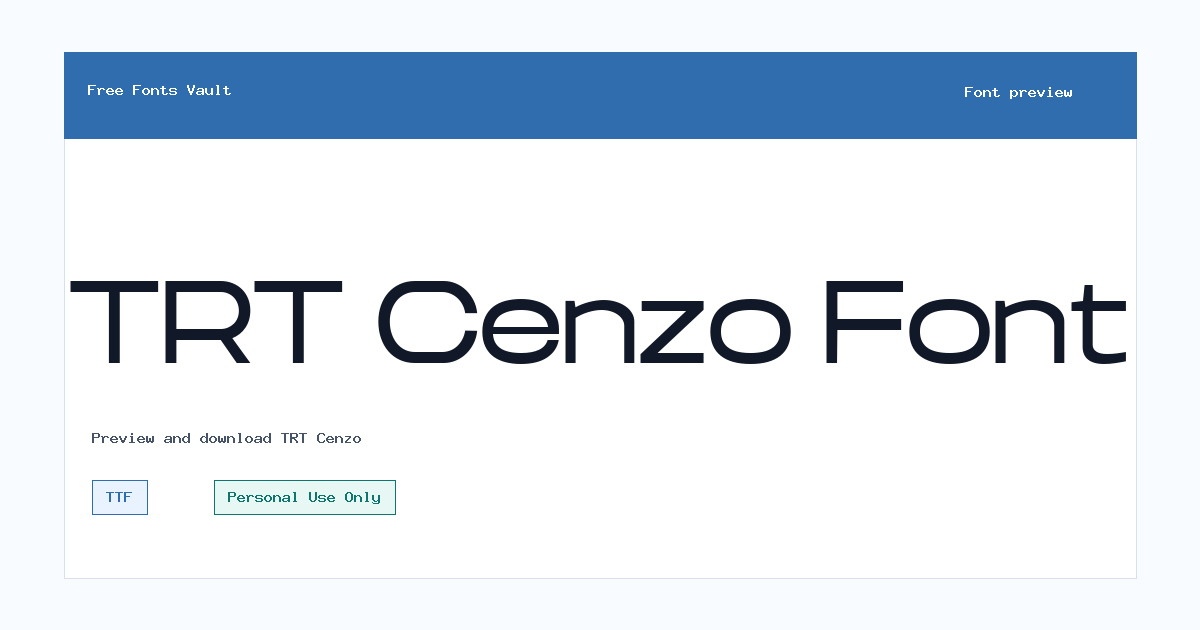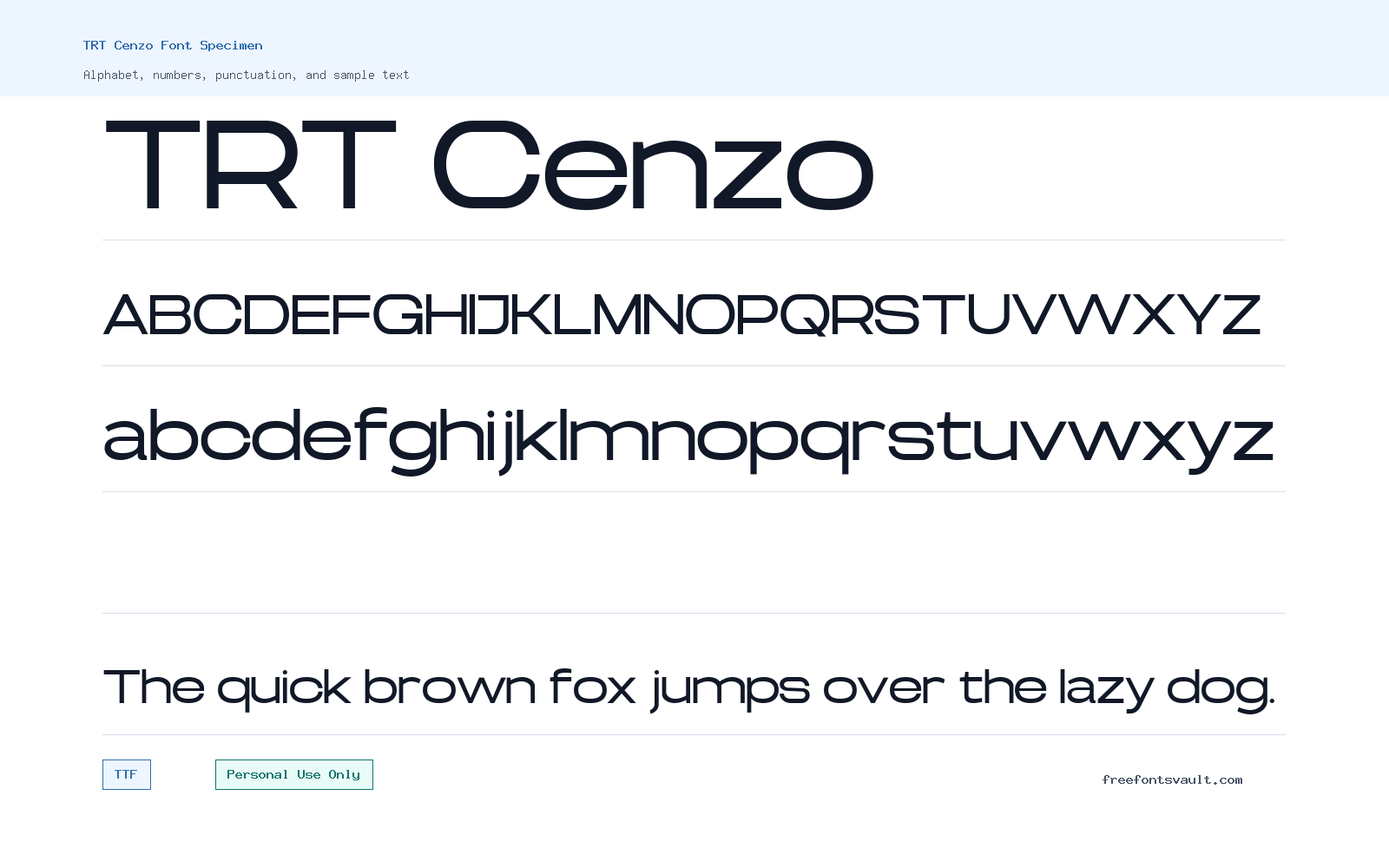
TRT Cenzo
- Designer Bobymocha
TRT Cenzo font.
TRT Cenzo is a sans serif font family with demo TTF files in several weights, making it useful to preview across light, regular, medium, and bold text styles before you decide how it fits your project.
About TRT Cenzo
TRT Cenzo works best when you want a clean sans serif look without leaning on decorative shapes or heavy display effects. The family name and files point to a straightforward text-and-display font, with weights ranging from Thin and ExtraLight through Regular, Medium, SemiBold, Bold, and ExtraBold. That range gives you room to test contrast: lighter weights can suit minimal headings or spacious layouts, while the heavier cuts are better for short titles, buttons, posters, thumbnails, and other places where the words need more presence.
Use the font preview to test the exact words you plan to set, especially names, numbers, punctuation, and mixed-case text. Thin and ExtraLight styles may look elegant at large sizes but can become harder to read in small captions or low-resolution images. Regular and Medium are safer starting points for general text, while Bold and ExtraBold are better kept for short phrases. If you pair TRT Cenzo with another font, try a simple serif for editorial contrast or a neutral sans serif for body copy. Avoid pairing it with another strong display face unless the layout is intentionally bold, because two attention-seeking fonts can compete.
- Multiple normal-style weights for testing hierarchy, from thin to extra bold
- Logo drafts, title previews, posters, social graphics, and short headings
- Testing font weight contrast in personal design mockups
The designer is listed as Bobymocha, and the foundry field is listed as True Type.
Which TRT Cenzo weight should I try first?
Start with Regular or Medium for balanced readability. Use Thin or ExtraLight for large, airy headings, and use Bold or ExtraBold when you need stronger emphasis in short text.
Can I use TRT Cenzo for body text?
You can test it for body text, but check readability carefully. The lighter weights are better suited to larger sizes, while Regular or Medium will usually be easier to read in longer passages.
Who designed TRT Cenzo?
The designer name listed for TRT Cenzo is Bobymocha.